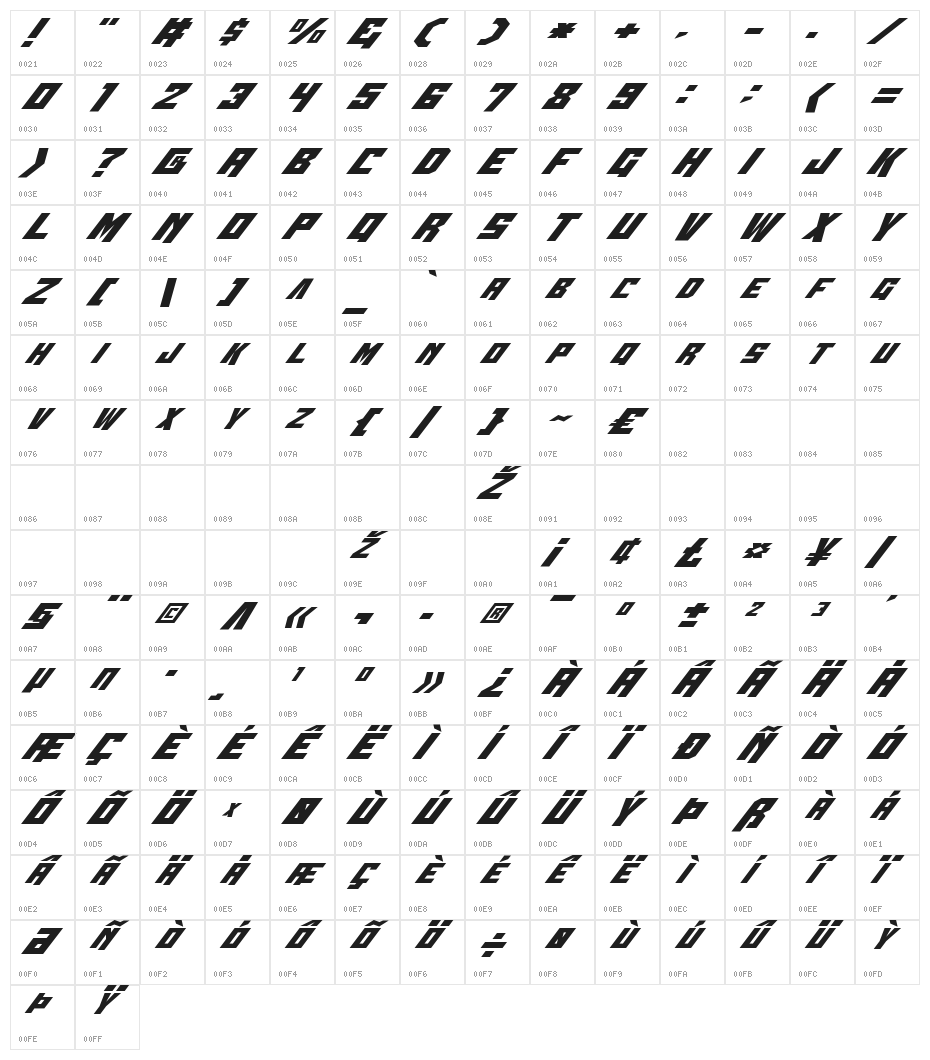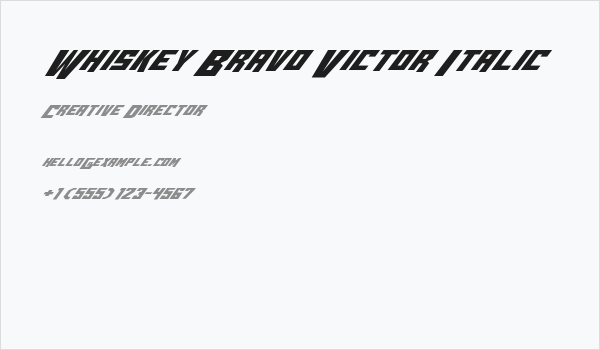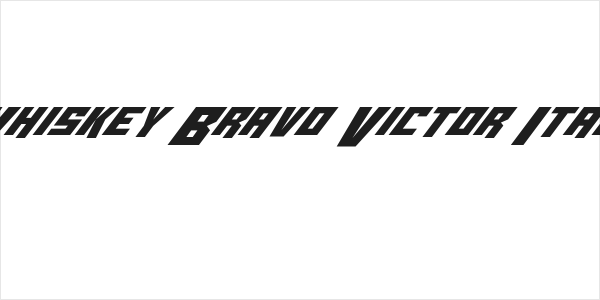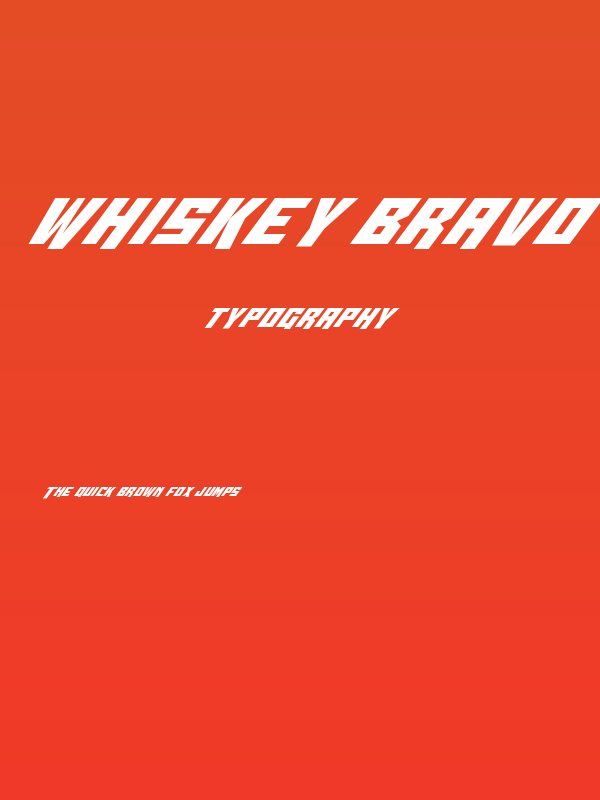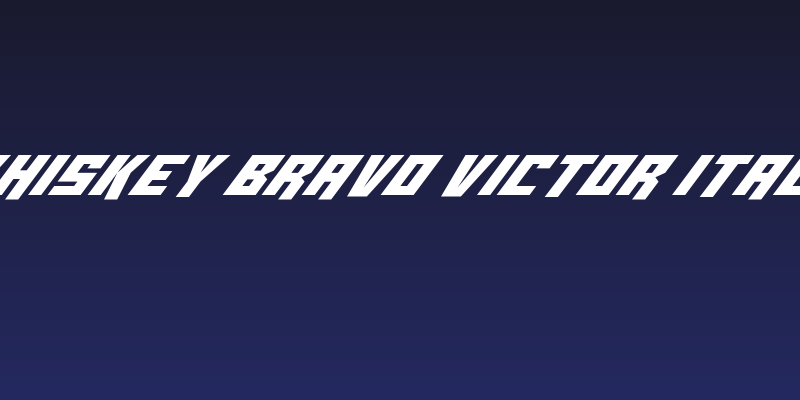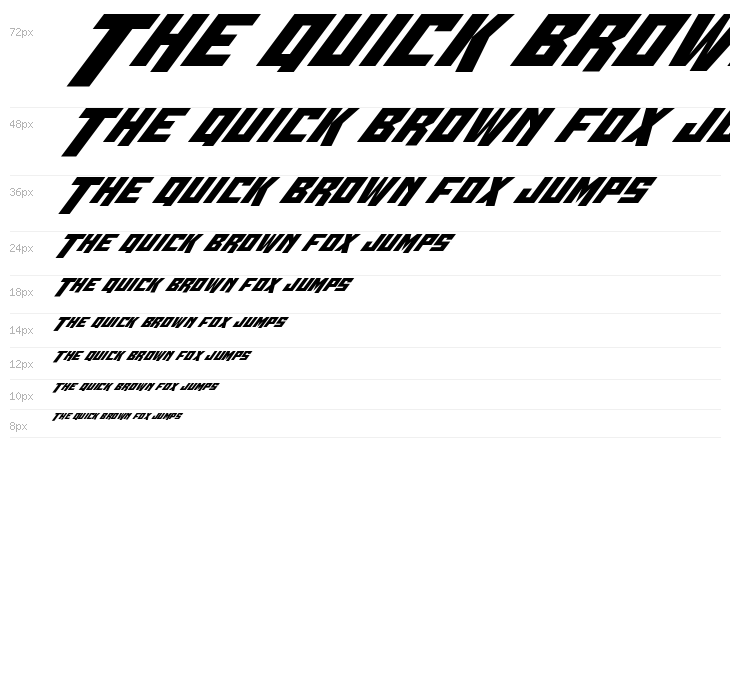
Whiskey Bravo Victor Italic Font
Whiskey Bravo Victor Italic Description
This font features a bold and dynamic design with a strong italic slant, giving it a sense of motion and energy. The characters are angular and geometric, with sharp edges and a futuristic feel. The uppercase and lowercase letters maintain a consistent style, while the numbers and special characters are designed to match the overall aesthetic. The font's boldness and unique style make it stand out, suitable for projects that require a modern and impactful look.
| Proposed Projects | Ideal for sports branding, video game titles, action movie posters, and dynamic logo designs. |